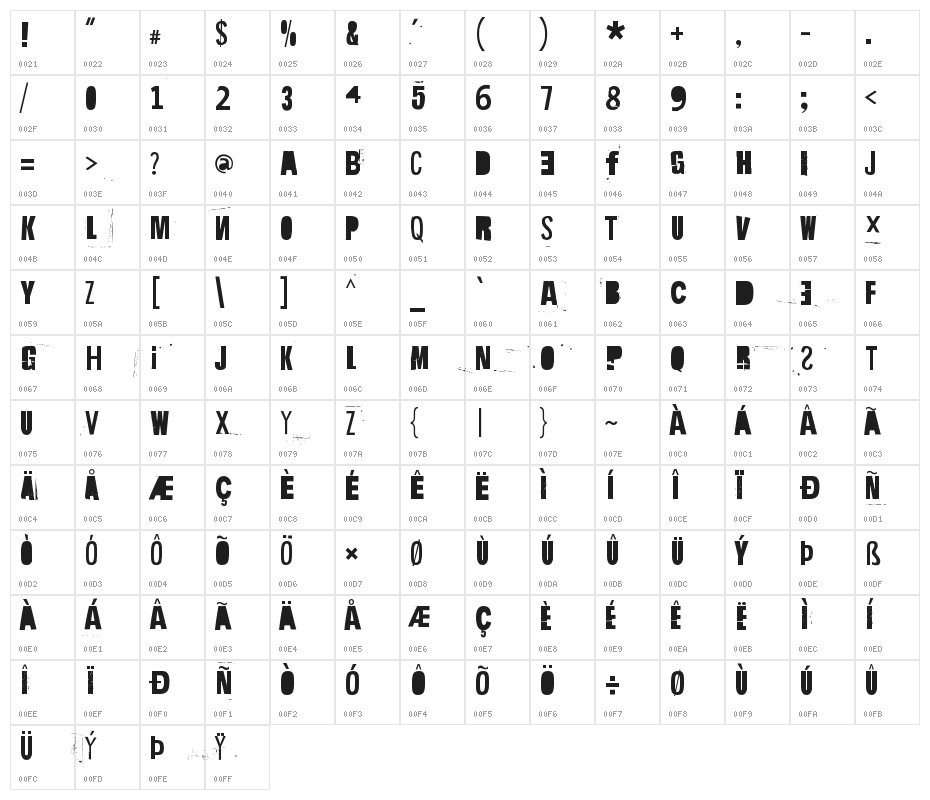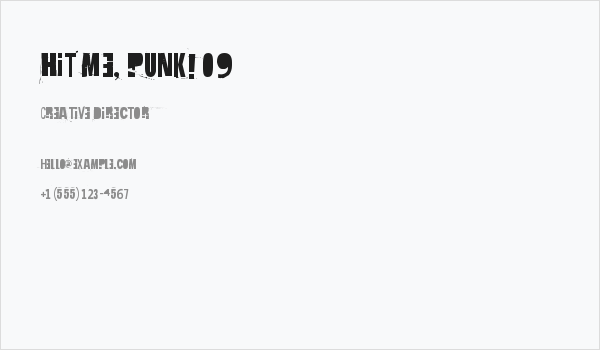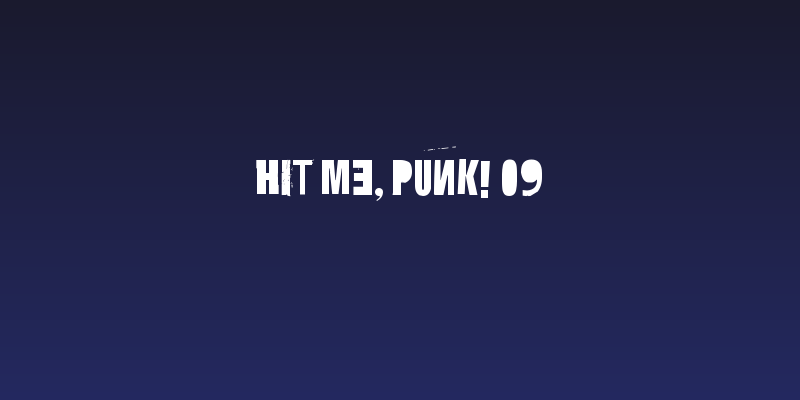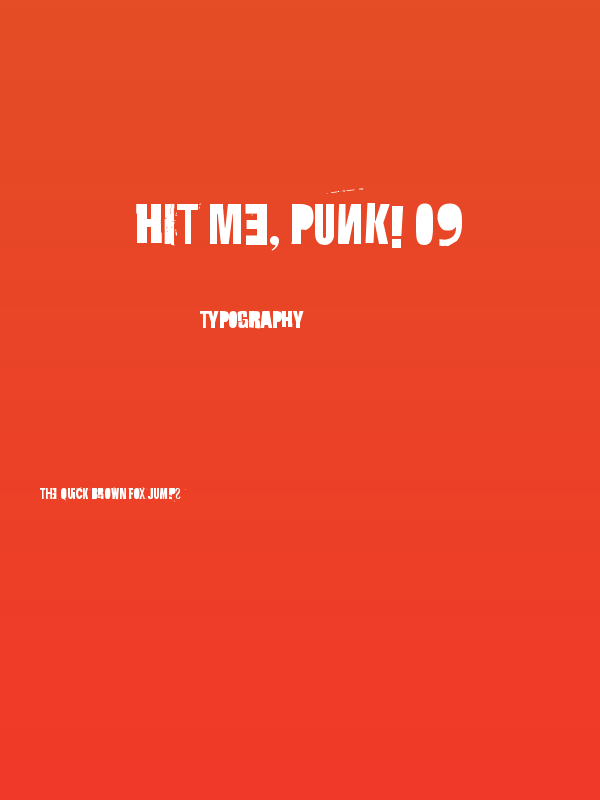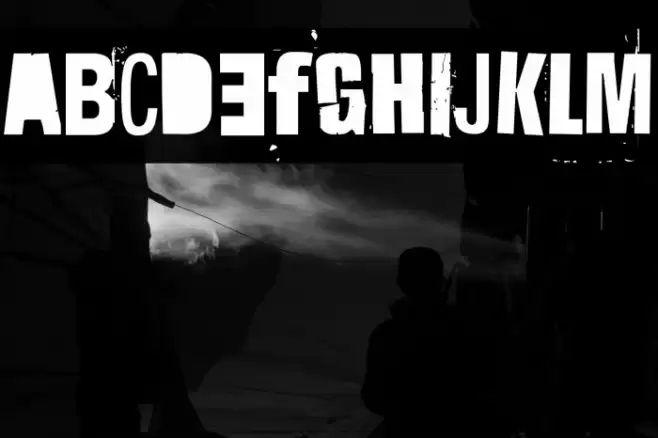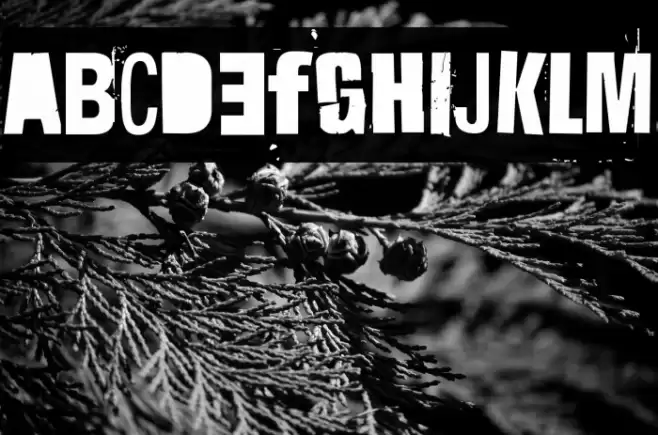
Hit me, punk! 09 Font
This font features a bold, distressed style with a grunge aesthetic, characterized by uneven edges and a rough texture that mimics a worn or weathered look. The uppercase and lowercase letters maintain a consistent height, creating a uniform appearance despite the irregularities in the design. The numbers and special characters follow the same distressed theme, adding to the overall cohesive look. This font's unique style makes it stand out, perfect for projects that require a rebellious or edgy feel. The boldness of the characters ensures readability while the distressed details add a layer of visual interest.
| Overall Style | Grunge, Edgy, Distressed |
| Proposed Projects | Ideal for music album covers, posters, streetwear branding, and edgy graphic designs. |